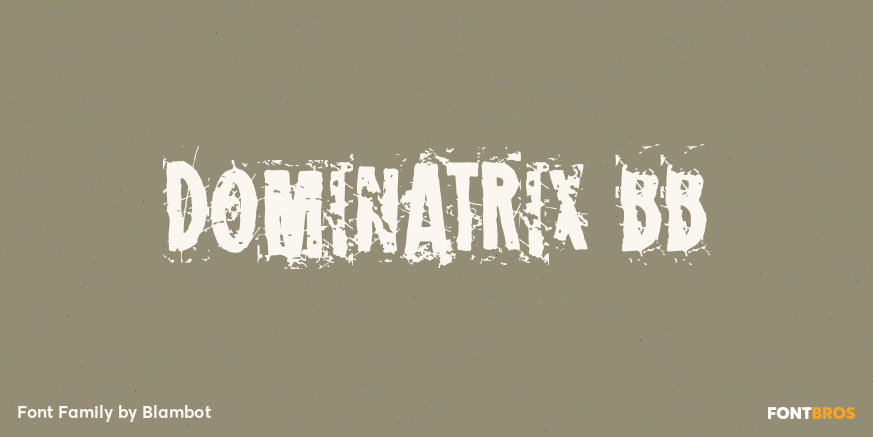
Dominatrix BB
About Dominatrix BB
Dominatrix is a dirty little font who won\’t let up until you say the safe word. And I\’m not telling you what the safe word is. This font comes with autoligatures so consecutive duplicate letters won\’t look identical. It also has more European characters…